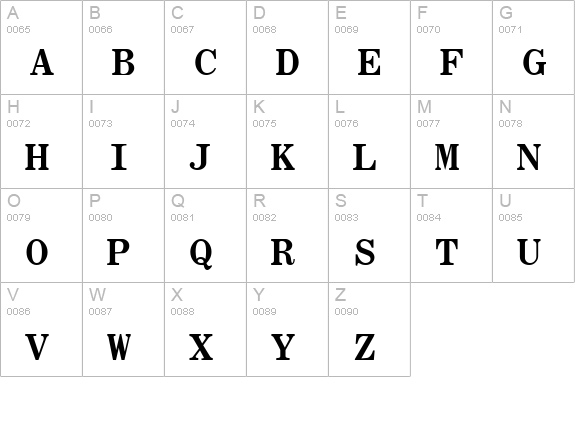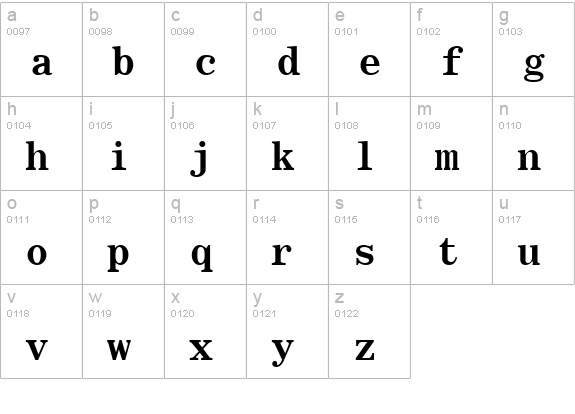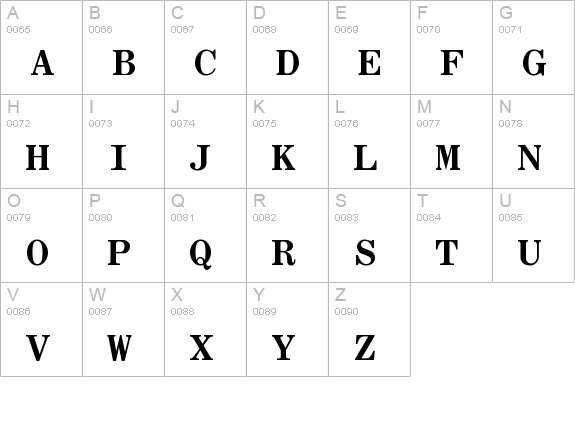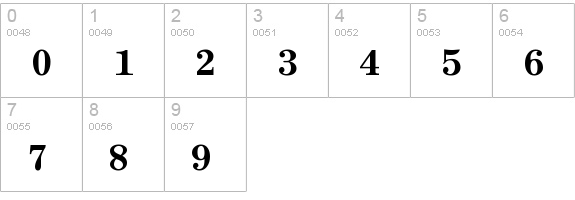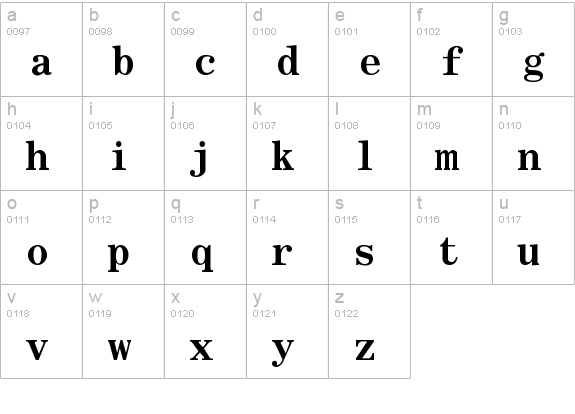
RomanFixedWidth Bold Font Details
RomanFixedWidth Bold is a strong, high-contrast variant in the RomanFixedWidth typeface family \xE2\x80\x94 well suited to headlines, attention-grabbing titles, and strong calls-to-action.
RomanFixedWidth Bold font is a stylish and versatile typeface that exudes sophistication and elegance. With its bold and assertive presence, this font is perfect for making a strong visual impact in various design projects. The clean lines and sharp edges of RomanFixedWidth Bold font give it a modern and timeless appeal, making it suitable for both digital and print applications. One of the best features of RomanFixedWidth Bold font is that it is available for free download at FontsMarket.com. This means that you can easily access this high-quality font without any cost, allowing you to enhance your designs without breaking the bank. Whether you're working on a branding project, advertising campaign, or any other creative endeavor, RomanFixedWidth Bold font is sure to elevate your work with its bold and commanding presence. Download this font today and add a touch of sophistication to your designs!